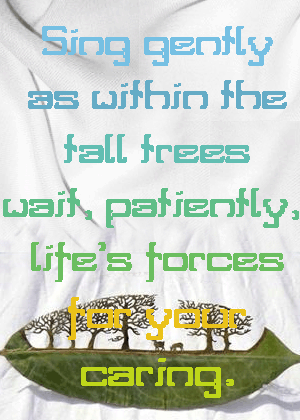
• I came across my old pierced stone pendant necklace and started to design a stone-shaped font with a hole. I made it quite 'airy' and lightweight with finer lines, curved ends and larger 'holes' making it more mystical, and using the shape to give the impression of solidity and power. The stone came from a south-eastern beach in the UK, the font out of my imagination, and the final result was possible with the help of FS ;)
... time to show the font in use ...
A delightfully decorated design, although I'm not sure that the diagonals have the strength of the other strokes. Still, 10/10
Really nice, decorative work!
Just, I'm not sure about the "k". What do you think?
Love it! Really cool font. Cablecomputer's right about the k.
I'll have a look at it tonight :)
I adjusted the angles of the "k", hope it looks more like it belongs to the rest of the letters.
Yeah the K looks better now.